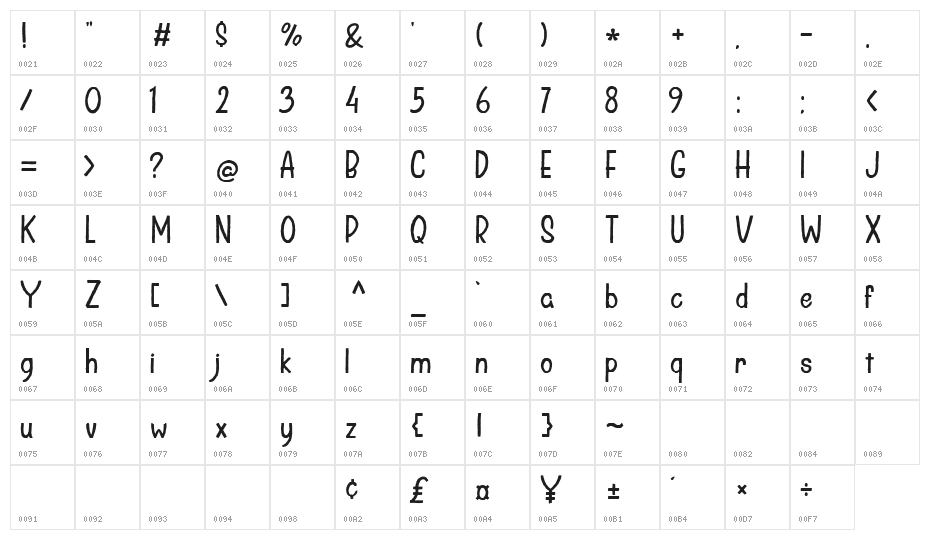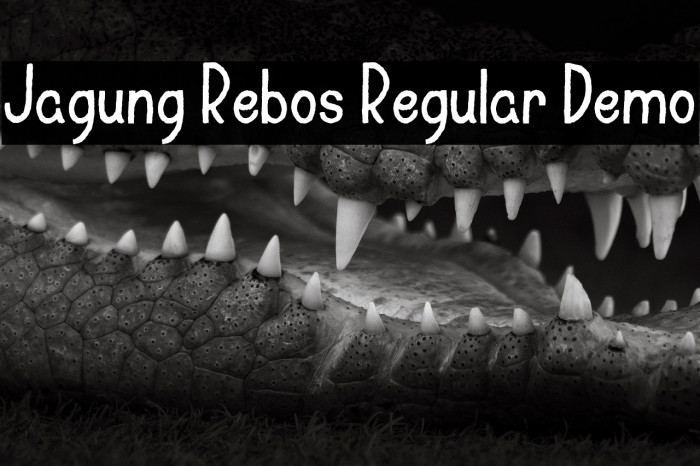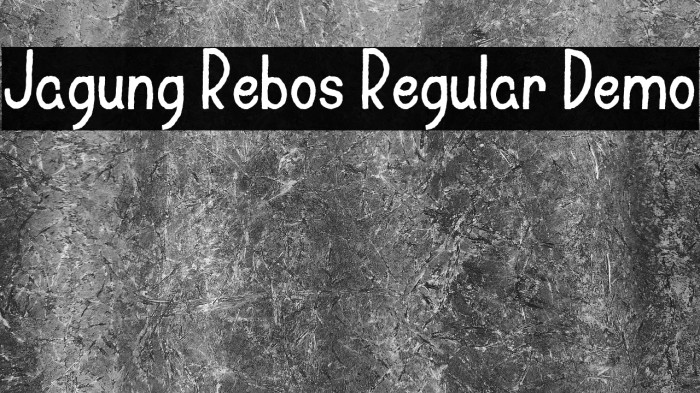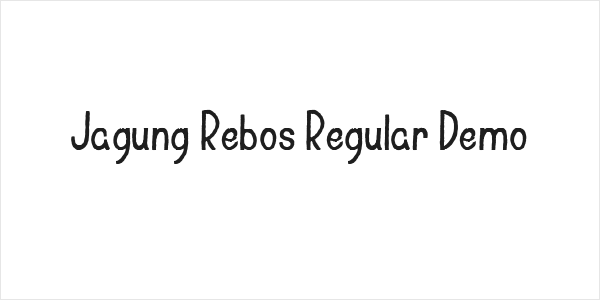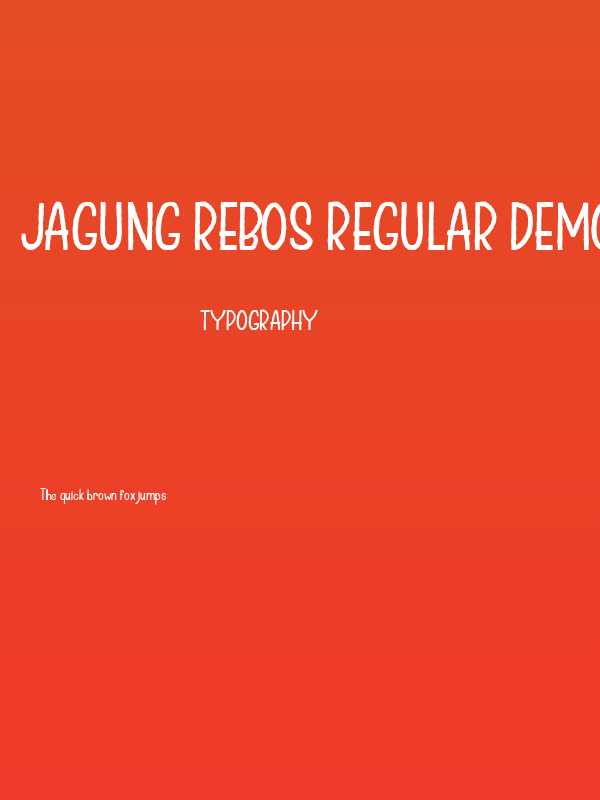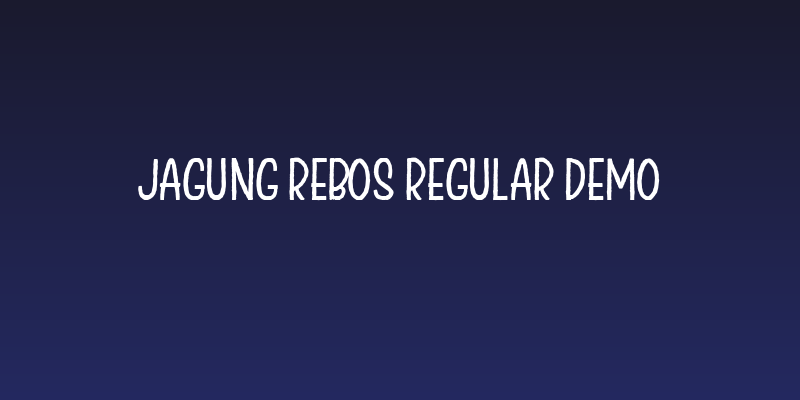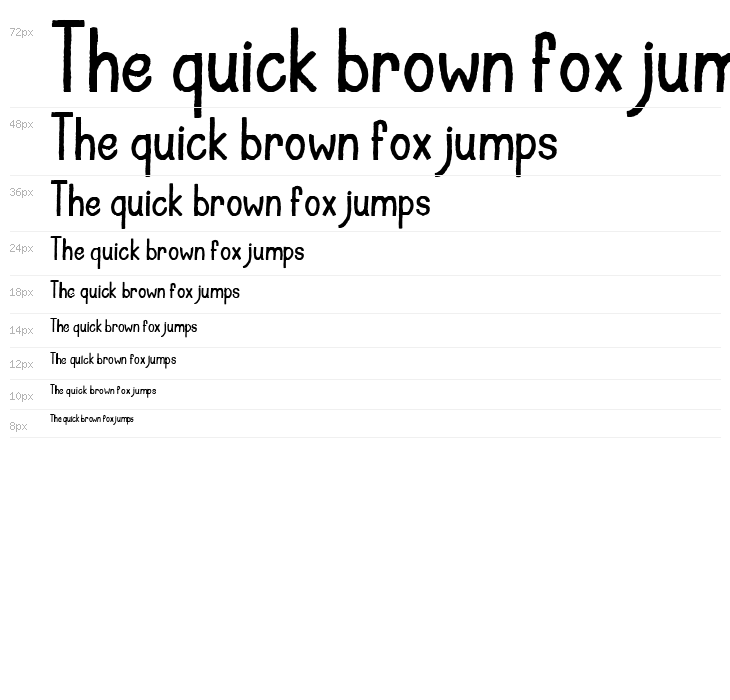
Jagung Rebos Regular Demo Font
Jagung Rebos Regular Demo Description
This font features a playful and hand-drawn aesthetic, characterized by its irregular strokes and casual appearance. The uppercase letters are bold and slightly uneven, giving a sense of spontaneity and creativity. The lowercase letters maintain this informal style, with rounded edges and a friendly demeanor. Numbers and special characters follow the same design principles, ensuring consistency throughout. The overall look is approachable and artistic, making it suitable for projects that require a personal touch.
| Overall Style | Casual and Artistic |
| Use Case | Headlines, Logos, Creative Projects |
| Proposed Projects | Ideal for children's books, creative posters, casual branding, and artistic invitations. |